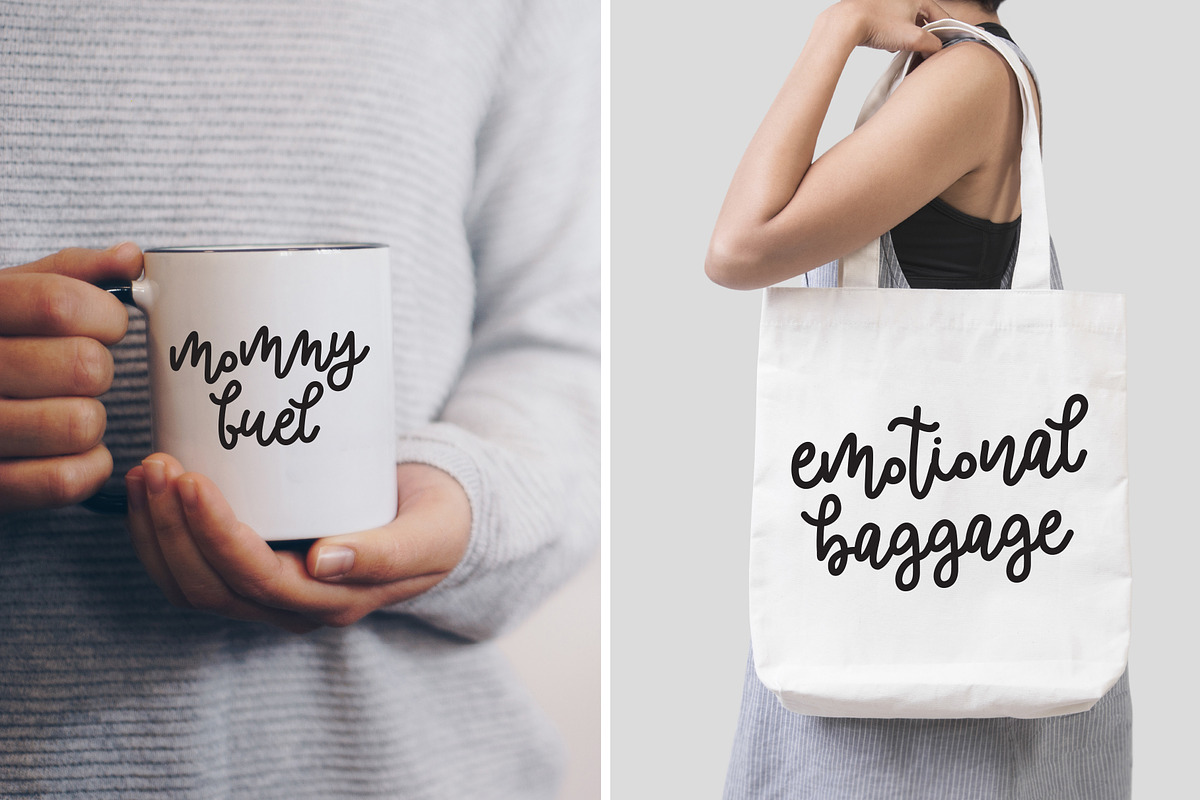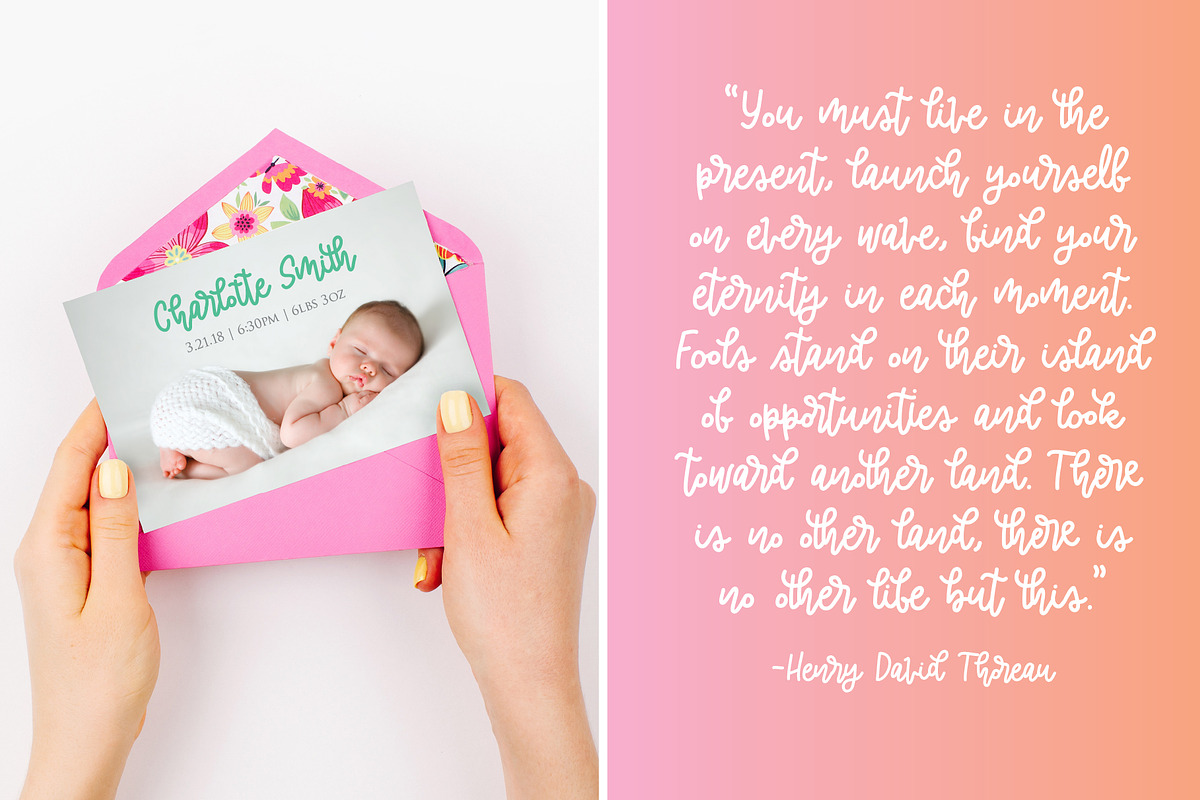
Toasted Marshmallow
Introducing Toasted Marshmallow, a carefree, hand drawn, monoline script font with a playful personality. This bouncy font is great for fun invitations, joyful products, and lighthearted brands.
Over 60 custom illustrations that pair well with this fun font are also included!
Toasted Marshmallow utilizes many unique ligatures to create that appealing hand drawn effect.